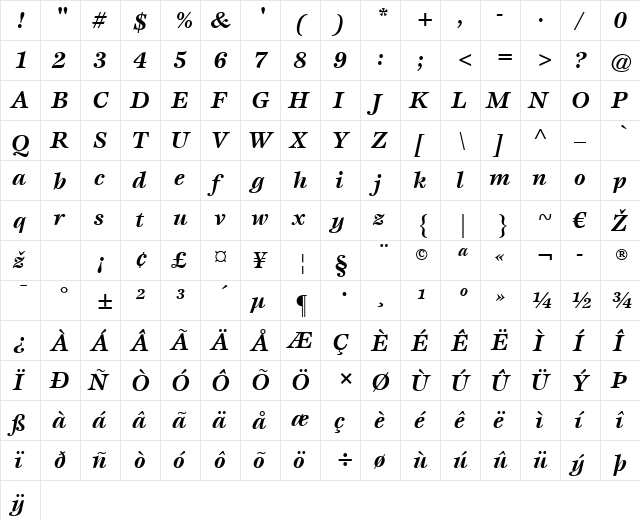
Esprit LT Book Bold Italic Font Preview
Design Context for Esprit LT Book Typeface
Esprit LT Book offers clean, dependable letterforms without strong stylistic allegiance, making it a practical choice for designers who need flexibility. The dynamic lean of this cut emphasises speed and emphasis in any layout. Its bold stroke weight gives it real presence on the page.
Pro Tip: Try Esprit LT Book for annotation and caption copy alongside an upright companion — the contrast in angle creates a dynamic but ordered typographic system.